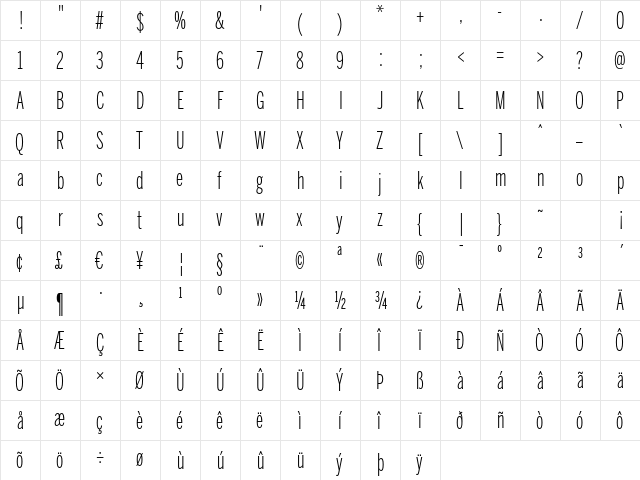
BentonSans ExtraComp Light Regular Font Preview
BentonSans ExtraComp Light Regular
BentonSans ExtraComp Light Regular Font Details
| Foundry | The Font Bureau, Inc |
| Designer | Cyrus Highsmith, Tobias Frere-Jones, and Font Bureau |
Design Context for BentonSans ExtraComp Light Typeface
BentonSans ExtraComp Light takes a measured approach to typography — its balanced proportions and neutral character make it a reliable workhorse for both digital and print work. The delicate stroke weight brings airiness and refinement to layouts.